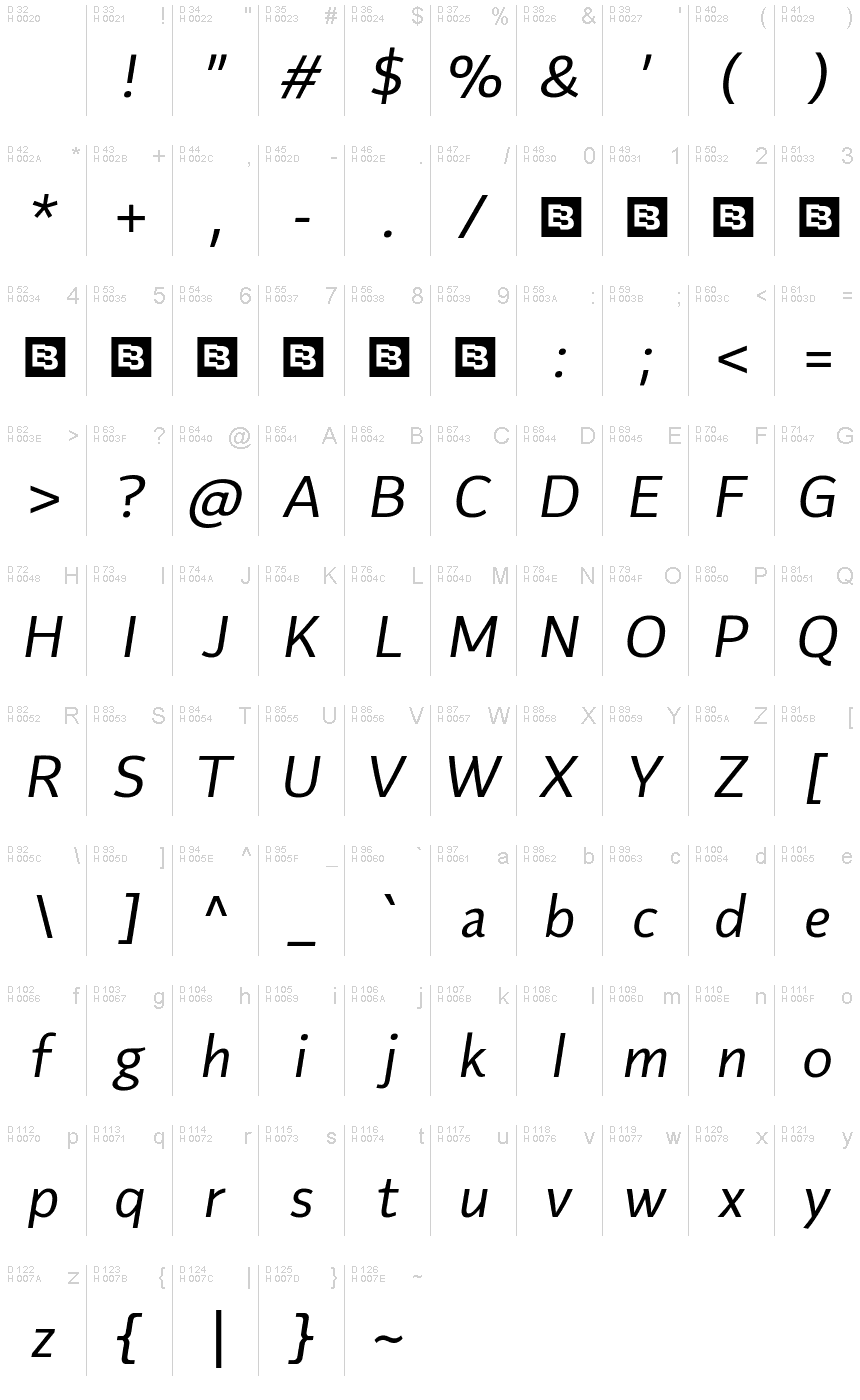
Flinders Italic, a modern sans serif font from the Flinders family by Eko Bimantara, adds a touch of elegance to any project.
Its semi-light weight and clean lines make it perfect for sophisticated branding materials, such as luxury fashion labels or high-end cosmetics packaging. Additionally, this italic font style brings a sense of creativity and dynamism to editorial designs, making it suitable for magazine spreads or book covers. With its versatile nature and unique design, Flinders Italic is sure to captivate audiences across various industries.